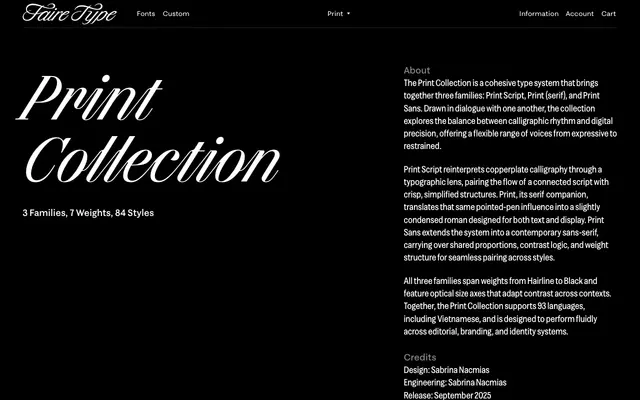
Print Collection
A three-family type system by Sabrina Nacmias drawing on copperplate calligraphy, spanning a connected script, a slightly condensed serif and a contemporary sans-serif across seven weights and multiple optical sizes.
Designed by Sabrina Nacmias and released in September 2025, the Print Collection unites a connected script, a pointed-pen serif and a sans-serif through shared proportions, contrast logic and weight structure. Each family runs from Hairline to Black with optical size axes covering display and text contexts, producing 84 styles across the three subfamilies. Together they support 93 languages including Vietnamese, making the system well suited to multilingual editorial and identity work.
The serif family in the collection draws on pointed-pen calligraphic influence, producing a slightly condensed roman with contrast logic rooted in copperplate tradition, placing it within a transitional or calligraphic serif subcategory.